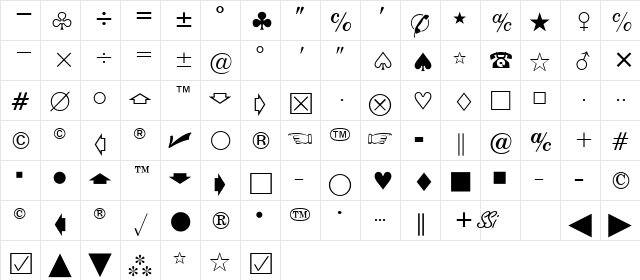
Eisago News SSi Regular
Design Context for Eisago News SSi Typeface
Eisago News SSi is a composed and adaptable typeface that performs quietly and consistently across a wide range of design contexts.